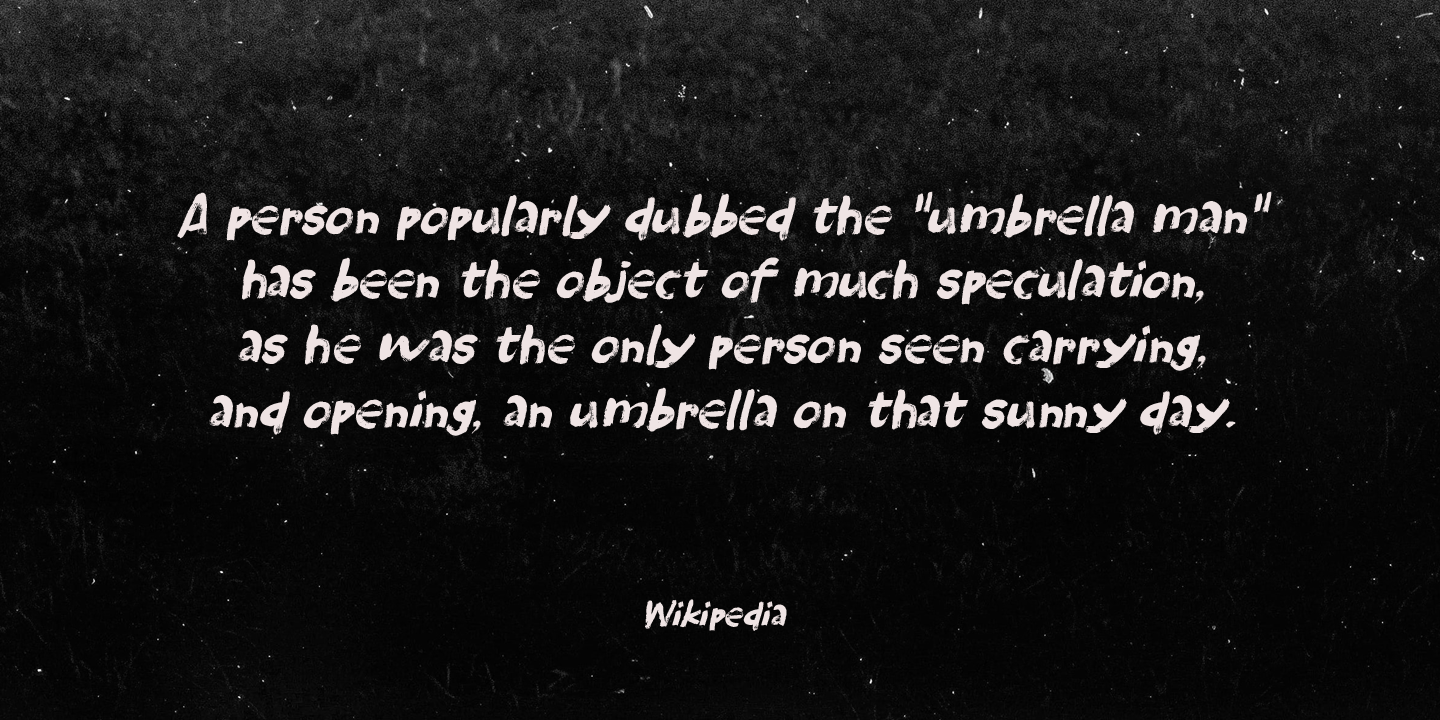
Umbrella Man Font Free Download – A Quirky Handwritten Typeface with Playful Character
Add a touch of whimsical charm to your designs with Umbrella Man Font Free Download, a delightfully irregular handwritten font that balances spontaneity with readability. Perfect for creative brands, casual packaging, and social media graphics, this font brings personality to any project.
Why Umbrella Man Font Stands Out
1. Playful Handwritten Features
Natural ink stroke variations
Slightly bouncy baseline
Authentic "quick sketch" feel
Coffee shop branding
Artisan product labels
Children's book titles
Creative blog headers
Personal journal designs
3. Technical Specs
550+ glyphs including alternates
Standard ligatures
Multilingual support
PUA encoded characters
DIY recipe cards
Handwritten-style notes
Birthday invitations
Bullet journal headers
Craft brewery packaging
Stationery collections
Café menu designs
Creative agency materials
Designer's Pro Tips
Combine with clean sans-serifs
Use warm, earthy color palettes
Accent with watercolor textures
18-24pt for best readability
Works beautifully in lowercase
Great for short to medium text